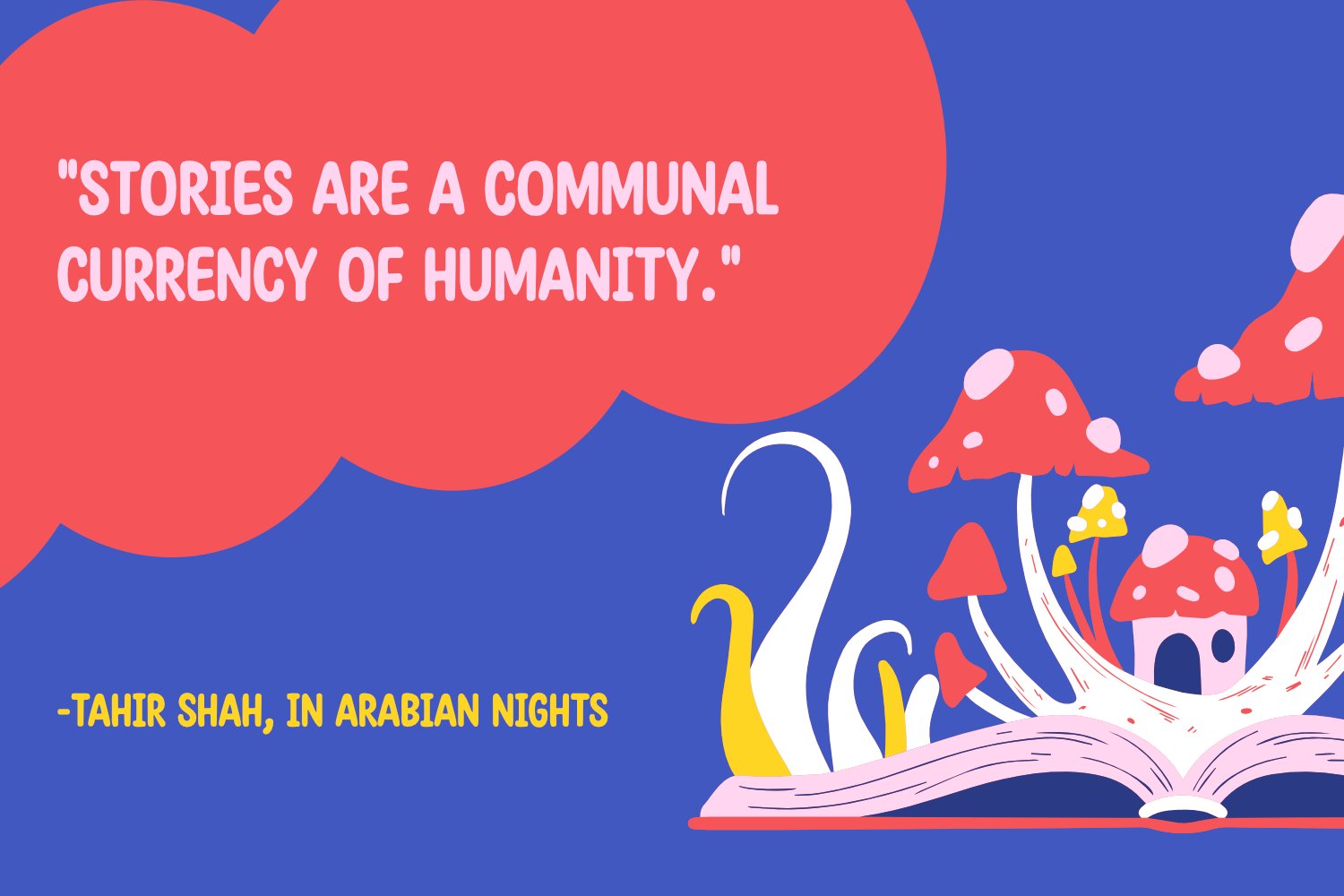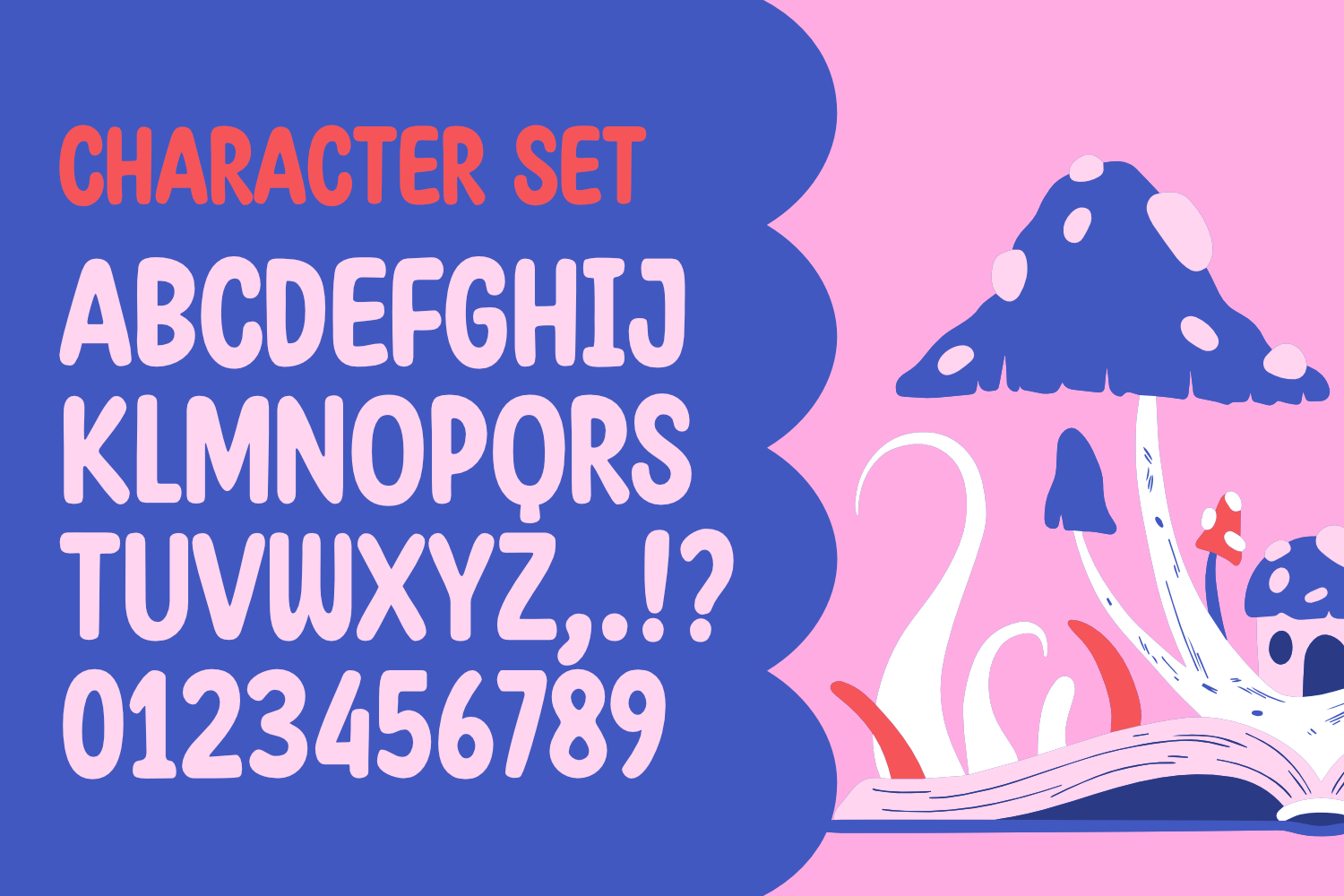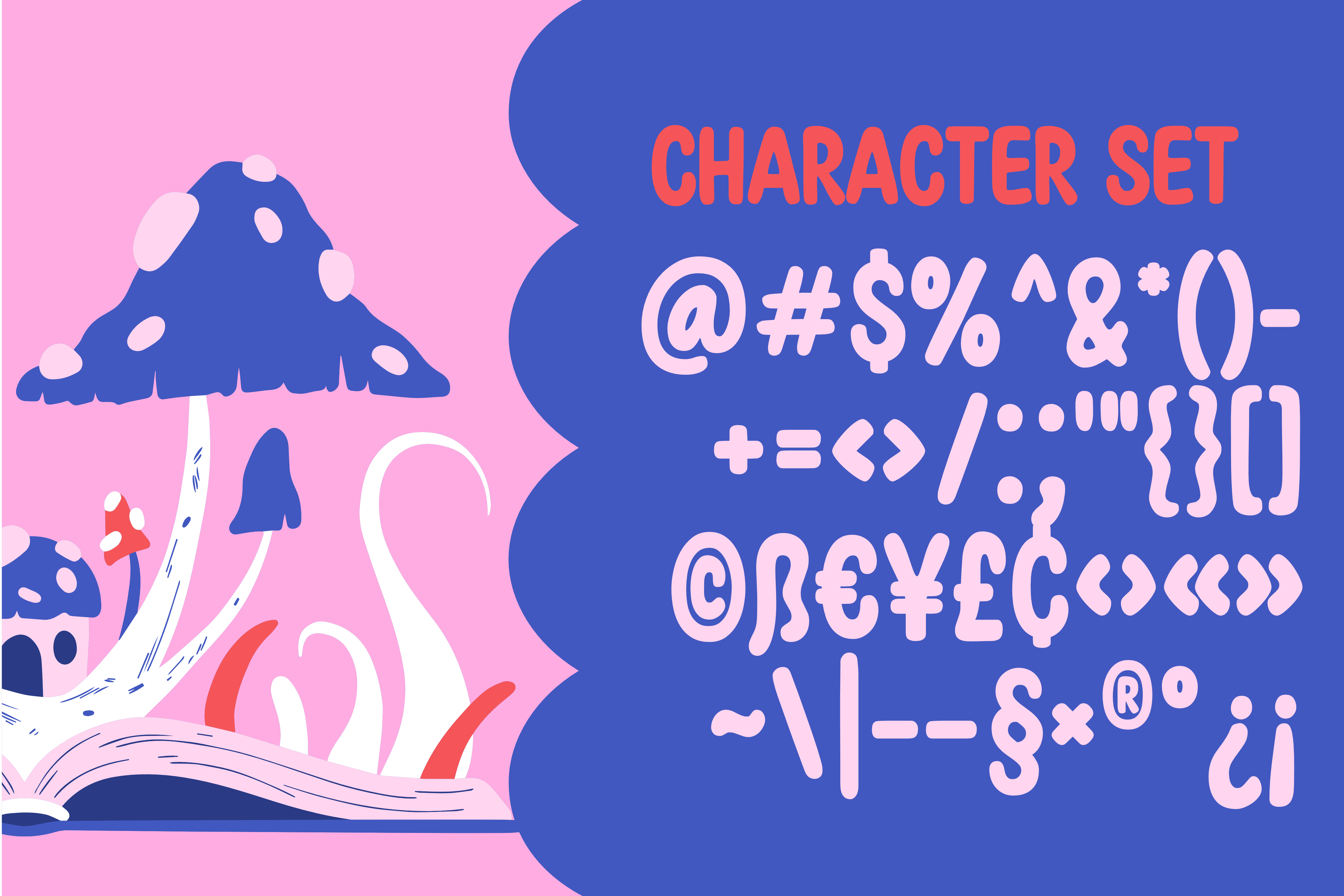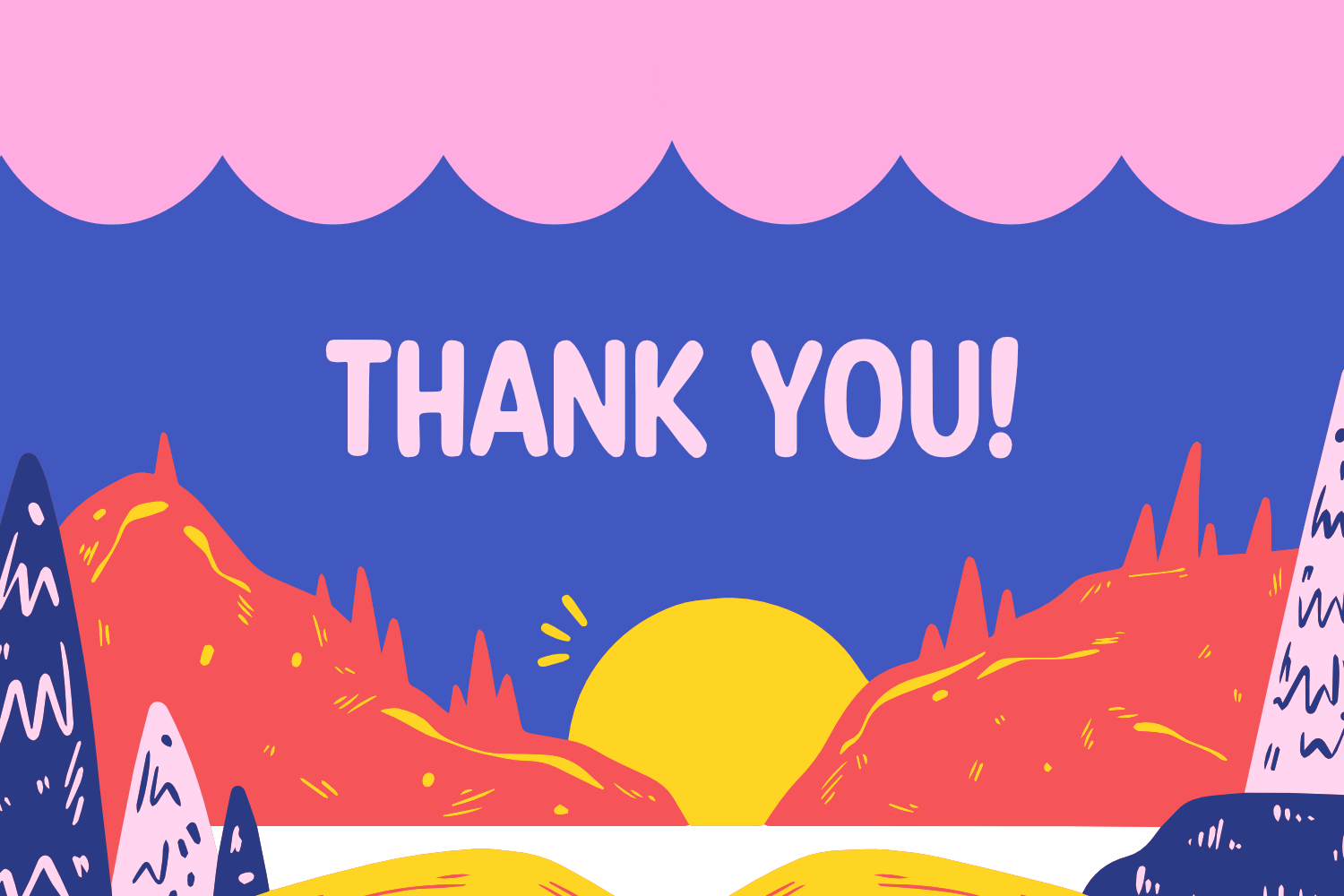
Story Element Display Font
It’s a cute, jolly and bubbly display font. Whether you use it for cartoon related designs, children games or just any creation that requires a lovely touch, this font will be an amazing choice.